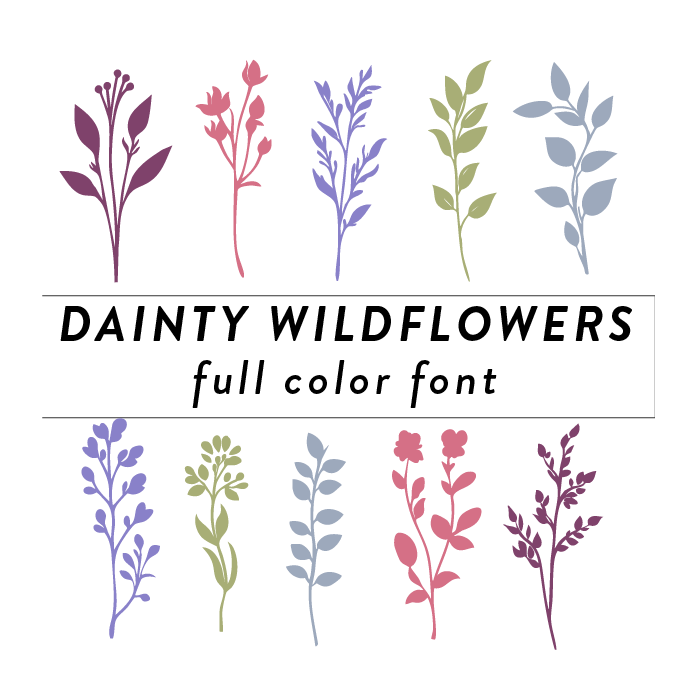
Dainty Wildflowers Full Color Font is a whimsical and delicate font design featuring intricate wildflowers, trees, branches, and leaves. Perfect for adding a touch of nature and elegance to any project, this font is ideal for invitations, cards, and other creative designs. This font is a OTF craft font that will appear in color only when used with the silhouette software.